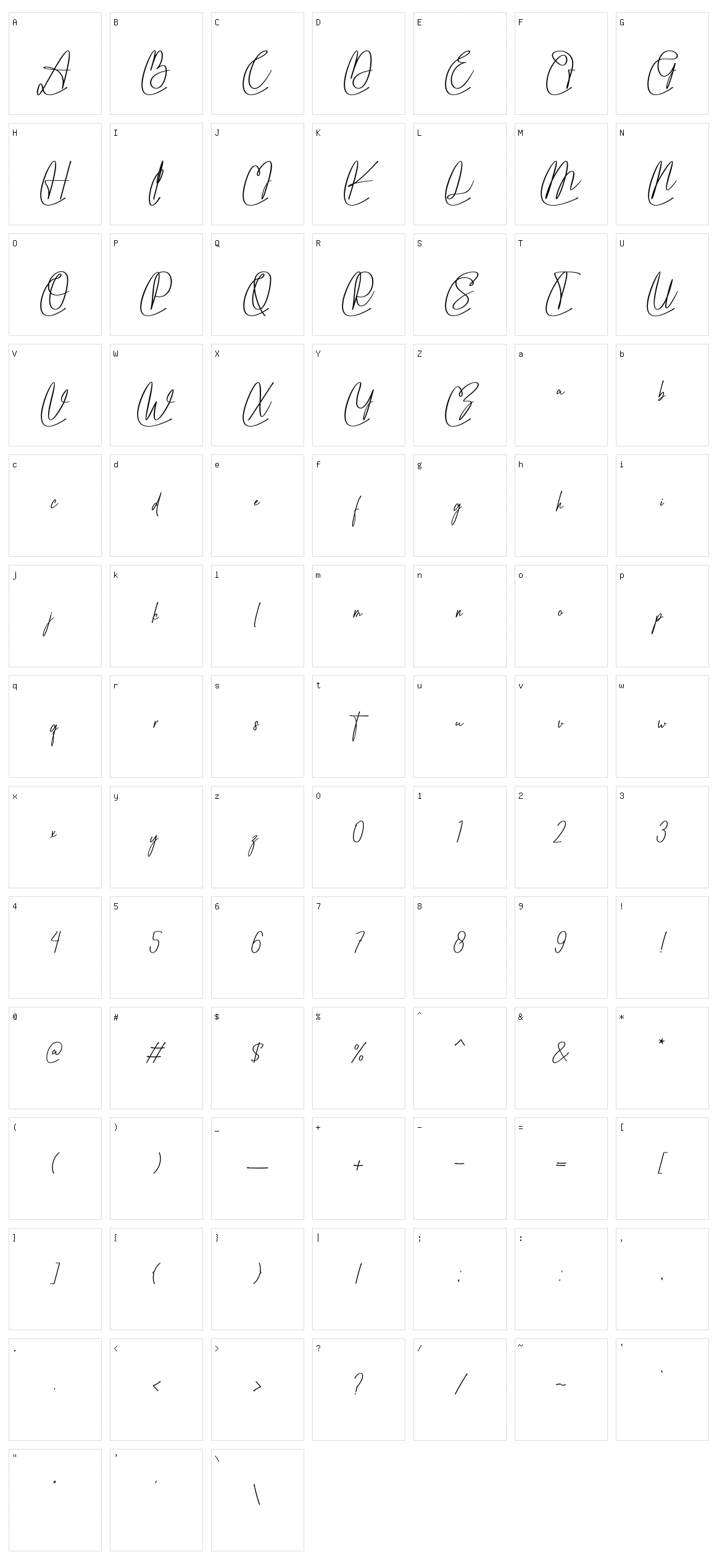
The free font Vippa Willette is carefully designed by NJ Studio, showcasing a thoughtful balance of creativity and usability and falls under the Script font style. When you download the ZIP file, it contains only 39.89 KB of font files, making it lightweight and quick to download. Please review the license details below to understand permitted usage and distribution rights. If license information is not available, we recommend using this font for personal projects only or contacting the author directly for commercial usage permissions.